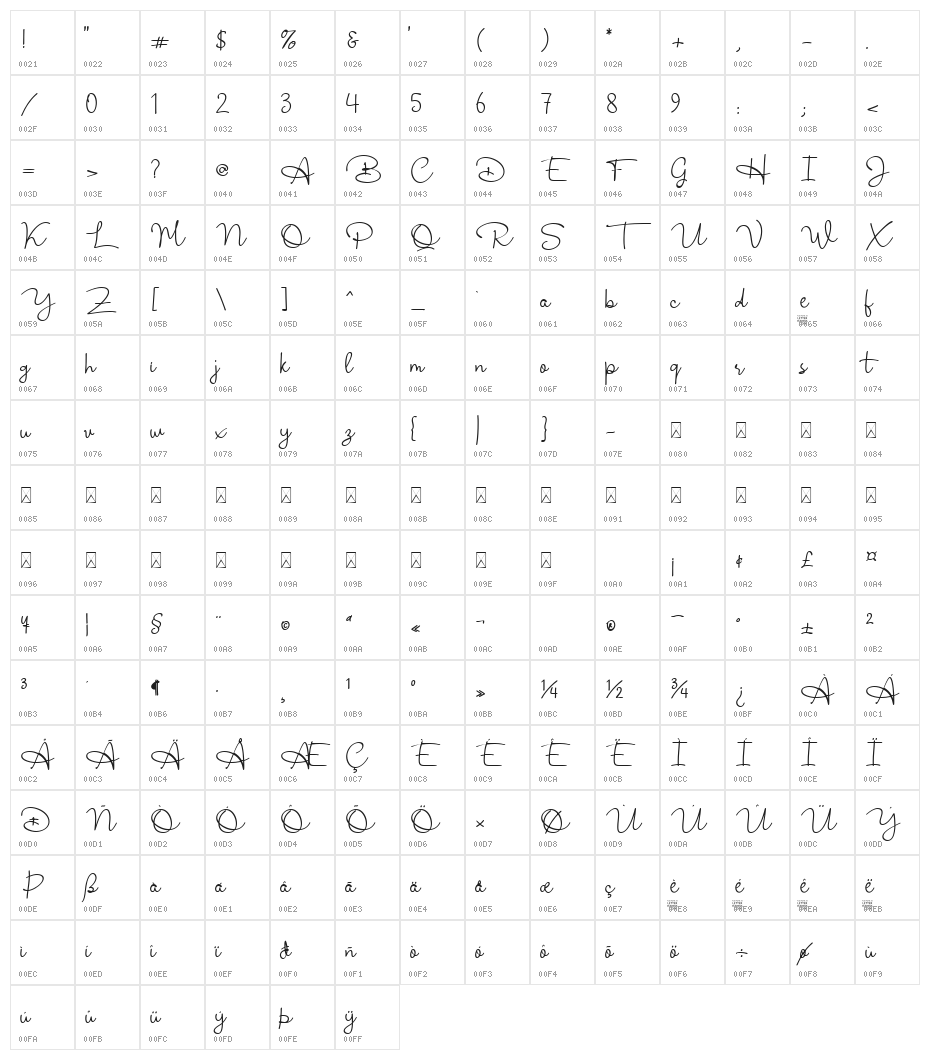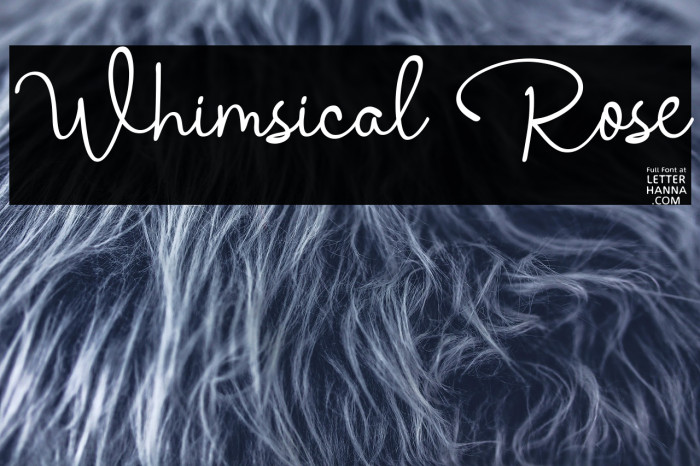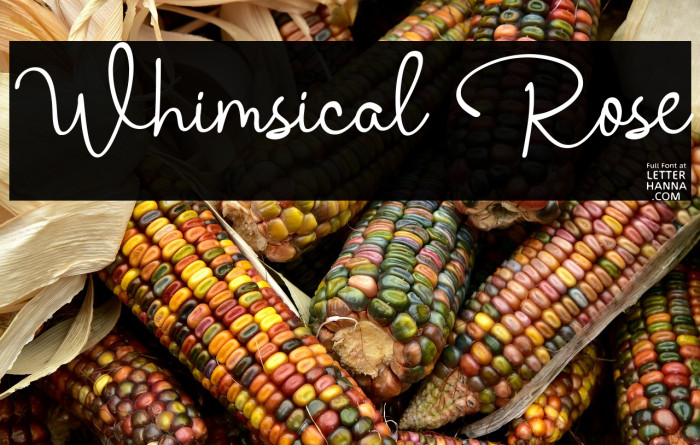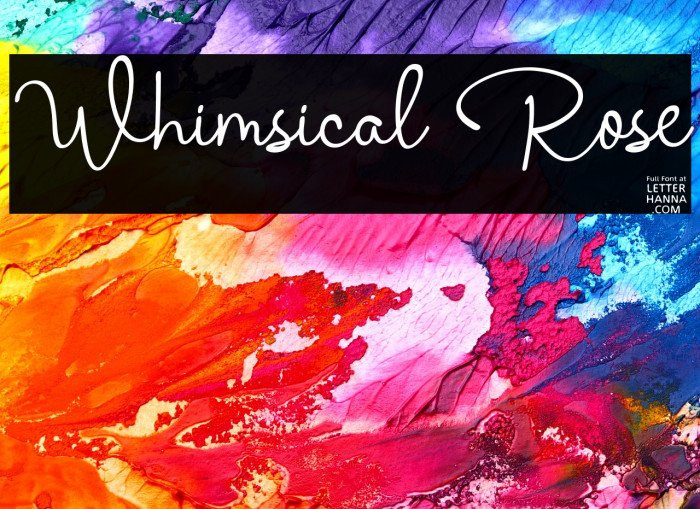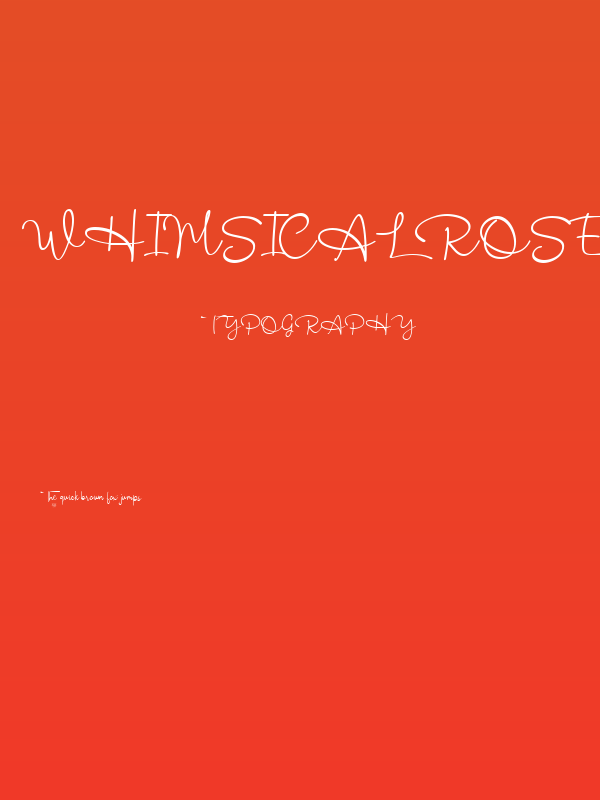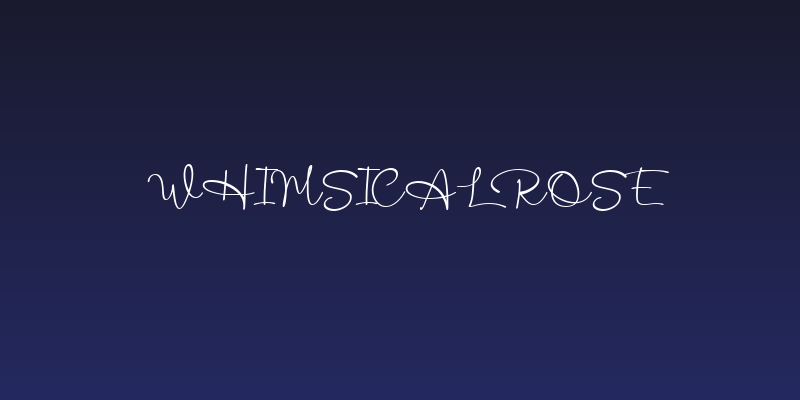
Whimsical Rose Font
Whimsical Rose Description
This font exudes a whimsical and playful charm, characterized by its flowing and curvaceous letterforms. The strokes are smooth and rounded, giving it a friendly and approachable appearance. Each character is crafted with a sense of movement, almost as if they are dancing across the page. The uppercase letters are bold and expressive, while the lowercase letters maintain a consistent rhythm, adding to the overall harmony of the design. The numerals and special characters are equally playful, ensuring a cohesive look across all text elements. This font is perfect for projects that require a touch of creativity and fun.